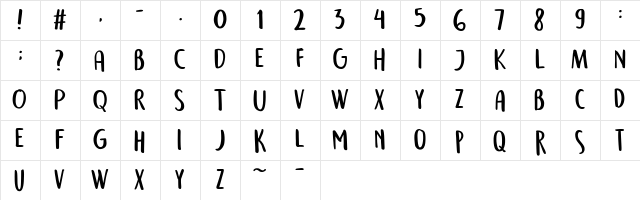
Semringah Regular
Design Context for Semringah Typeface
Semringah is a composed and adaptable typeface that performs quietly and consistently across a wide range of design contexts.